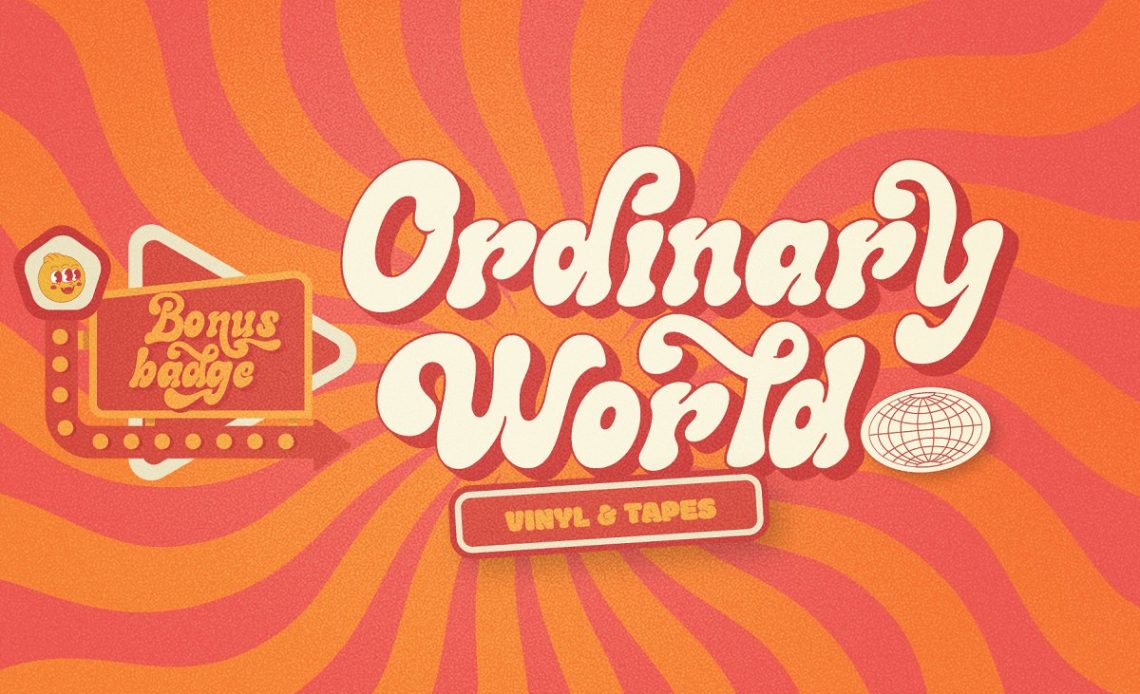
Introducing the Sunnyside Groovy Font + Extras - a retro font duo that will take you back to the 80s in style! Created by the talented Ramandhani Nugraha, this script font family is the perfect fit for your magazine ads, brochure, logo, headline, quotes, and more.
Each font in this family is unique and can stand on its own, giving your content a dynamic and authoritative edge. The Regular and Extrude versions of the Sunnyside font duo are perfect for cover magazine and short paragraphs or content.
With ligatures like ff, fi, fl, it, rx, st, tti, ti, tm, tt, Ch, St, ft, ift, ffi, ffl, and alternates, this font family gives you unlimited possibilities to create your own unique design. It also supports multilanguage, numbering, and punctual options.